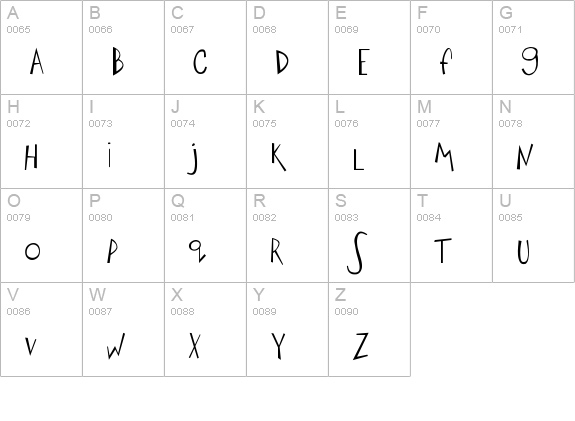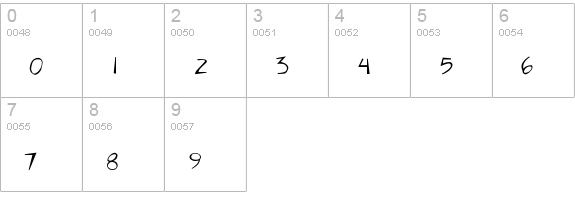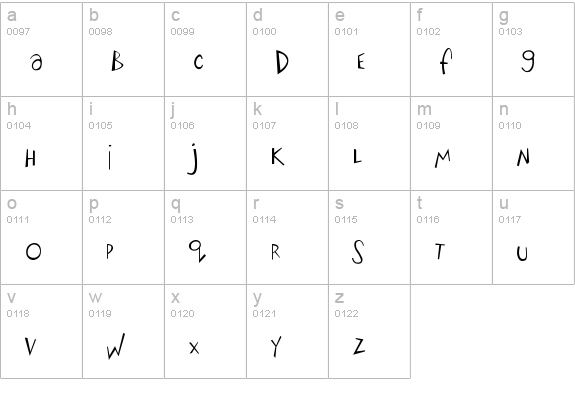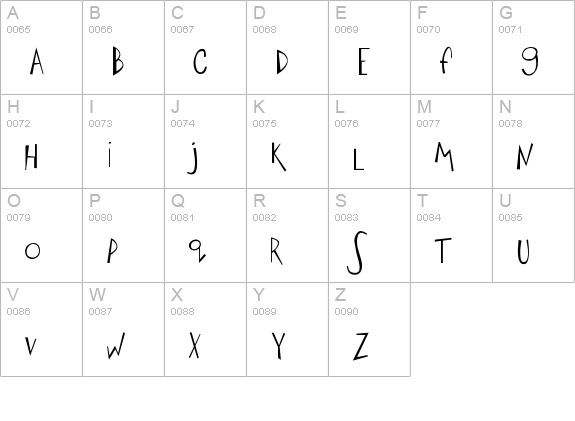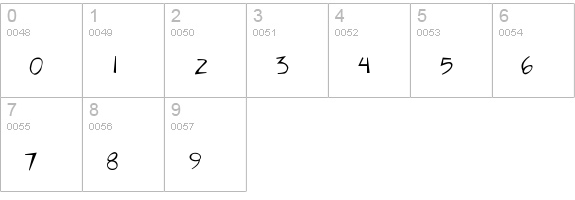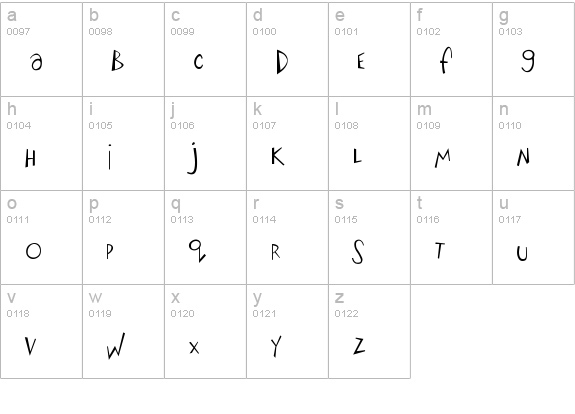
Big Fish Ensemble is a whimsical and playful font that is sure to make a splash in your design projects. With its unique blend of bold strokes and quirky details, this typeface captures the essence of fun and creativity. Whether you're working on a poster, logo, or greeting card, Big Fish Ensemble will add a touch of charm and personality to your designs. What's even better is that Big Fish Ensemble is completely free to download at FontsMarket.com. This means you can easily access this delightful font and start using it in your projects right away. Don't miss out on the opportunity to bring a touch of whimsy to your designs with Big Fish Ensemble!